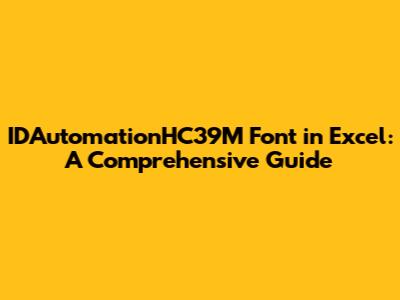
- Inventory Management: Keep track of your products with unique barcode identifiers.
- Asset Tracking: Label equipment and monitor their locations.
- Membership Cards: Create scannable membership IDs.
- Document Management: Organize files and records efficiently.
- General Identification: Any scenario where unique identification is needed.
- Easy to Use: Once installed, it functions like any other font in Excel.
- Versatile: Supports various barcode heights and densities.
- Cost-Effective: Often a more affordable solution than dedicated barcode generators.
- Integrates Seamlessly: Works directly within Excel, avoiding external software.
Hey guys! Ever needed to use barcodes in your Excel spreadsheets? Well, the IDAutomationHC39M font is a fantastic tool for just that! This guide will walk you through everything you need to know about using this font in Excel, from the basics to some more advanced tips and tricks. Whether you're tracking inventory, managing assets, or just trying to streamline your data entry, this font can be a real game-changer. So, let's dive in and get you up to speed on how to make the most of the IDAutomationHC39M font in your Excel projects!
Understanding the IDAutomationHC39M Font
Okay, so what exactly is the IDAutomationHC39M font? Simply put, it's a font that, when used correctly, displays data as Code 39 barcodes. Code 39 is a really common barcode symbology, also known as USS Code 39, ANSI Code 39, or Code 3 of 9. It's popular because it can encode alphanumeric characters (that means letters and numbers), and it's relatively simple to implement. The IDAutomationHC39M font is designed to make generating these barcodes in documents and spreadsheets super easy.
Why Use Code 39?
Code 39's versatility makes it suitable for a wide array of applications. Here’s a quick rundown:
Key Features of IDAutomationHC39M
Step-by-Step Guide to Using IDAutomationHC39M in Excel
Alright, let's get practical! Here’s a step-by-step guide to actually using the IDAutomationHC39M font in Excel. Follow these steps, and you'll be generating barcodes in no time. It's way easier than you might think, trust me!
Step 2: Prepare Your Data
Next up, you need to prepare the data that you want to turn into barcodes. Code 39 requires a start and stop character, which is usually an asterisk (*). So, you'll need to add an asterisk at the beginning and end of your data. For example, if you want to encode the number "12345", your cell should contain "12345". You can do this manually, but if you have a lot of data, a formula can be a lifesaver. Use the following formula in Excel:
="*"&A1&"*"
In this formula, A1 is the cell containing your original data. Drag this formula down to apply it to all the cells you want to encode.
Step 3: Apply the Font
Now for the magic! Select the cells containing your modified data (with the asterisks). Go to the font selection dropdown in Excel (usually it shows "Calibri" by default) and find "IDAutomationHC39M". Select it, and BAM! Your data should transform into barcodes. If the barcodes don't look quite right, you might need to adjust the font size to get the optimal width and height. Experiment a bit until you find what works best for your scanner.
Step 4: Test Your Barcode
Finally, the most important step: testing! Use a barcode scanner to scan the barcodes you've created. Make sure the scanner is properly configured to read Code 39 barcodes. If the scanner reads the data correctly, congratulations! You've successfully generated barcodes in Excel. If not, double-check that you've added the asterisks correctly, and that the font is applied to the correct cells. Sometimes, the issue can be the scanner settings, so make sure it's set up to read Code 39. Testing is really important, guys. Doing this will catch any mistakes early on so you don't waste your time creating barcodes that don't work. Also, you'll have more faith when applying the font to bigger projects.
Advanced Tips and Tricks
So, you've mastered the basics, huh? Great! Now, let’s kick things up a notch with some advanced tips and tricks for using the IDAutomationHC39M font in Excel. These techniques will help you customize your barcodes, automate the process, and troubleshoot common issues.